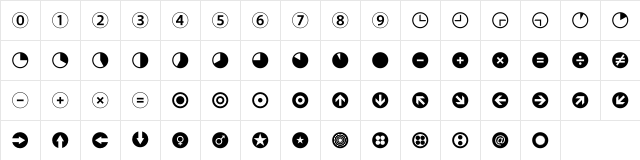
Complete Leitura Symbols Circles glyph index. Displaying only characters natively supported by Leitura Symbols Circles font.
Leitura Symbols is a composed and adaptable typeface that performs quietly and consistently across a wide range of design contexts.
Pro Tip: Use Leitura Symbols in both headline and body roles to test its range before committing to a single application.